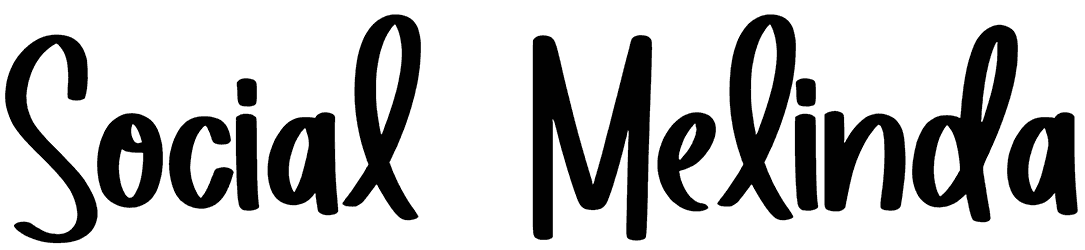
Social Melinda Font
What your design needs to become friendly and striking is a casual invitation font like the present item. The Social Melinda font supports all characters, and you can use them for varied short or long texts. Test this script font for your new design of a travel postcard or anything else, and hook a lot of viewers.